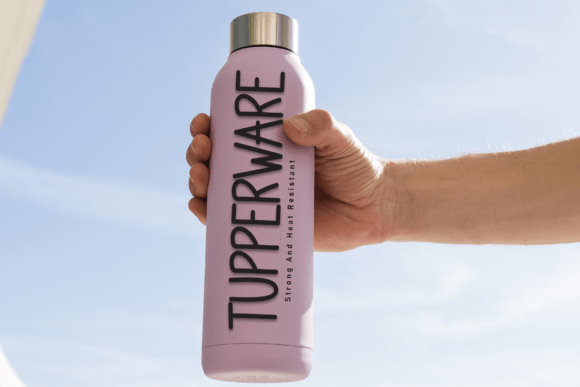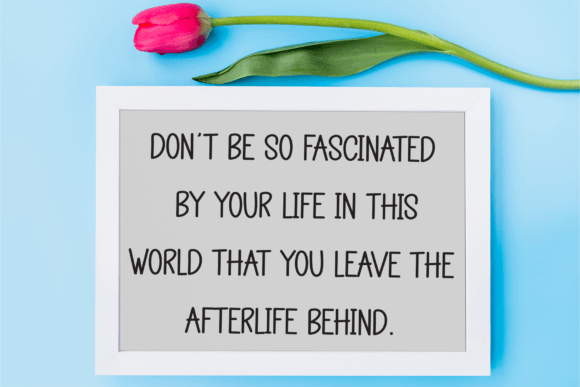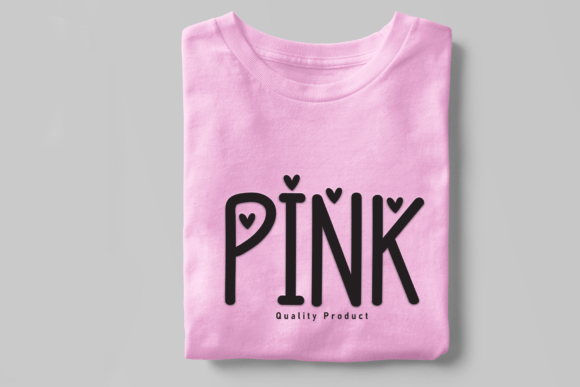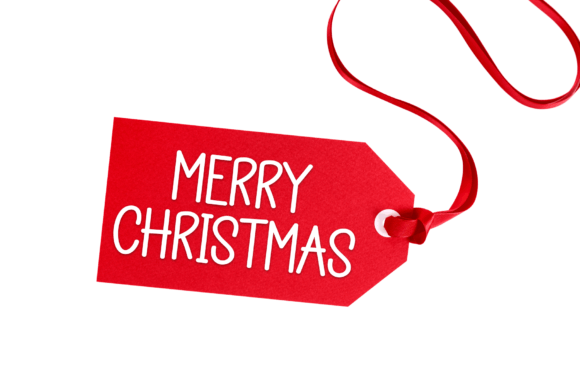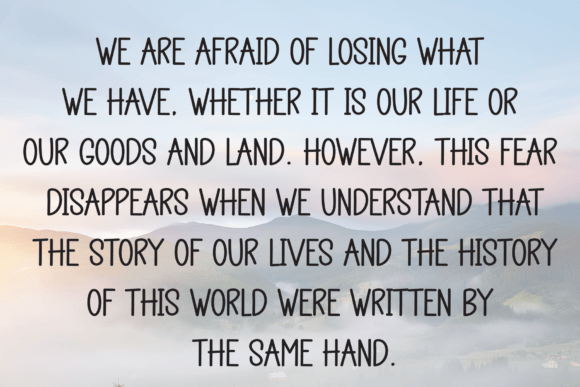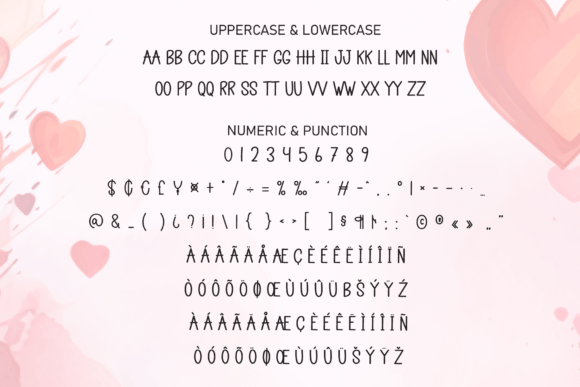
Introducing Hello Carmila Font: The Perfect Casual Handwritten Style for Your Designs
In the world of typography, fonts play a crucial role in conveying the tone and personality of a design. If you’re looking for a casual, handwritten font that exudes a relaxed and friendly vibe, look no further than Hello Carmila. This beautiful font is designed to bring a natural, effortless charm to your projects, making it perfect for personal designs, social media, and invitations.
The Characteristics of Hello Carmila Font
Hello Carmila is a casual handwritten font that boasts natural, flowing strokes. Its relaxed and friendly vibe makes it an ideal choice for designers who want to add a personal touch to their work. The font’s easygoing style adds warmth and authenticity, making it perfect for designs that require a human touch.
What Makes Hello Carmila Font Stand Out?
- Natural and Flowing Strokes: Hello Carmila’s strokes are smooth and fluid, giving the font a natural and effortless look.
- Casual and Friendly Vibe: The font’s relaxed style makes it perfect for designs that require a friendly and approachable tone.
- Easy to Read: Hello Carmila is clear and legible, making it easy to read and understand.
- Versatile: The font is suitable for a wide range of designs, from personal projects to social media and invitations.
Perfect for Personal Projects and Designs
Hello Carmila font is ideal for personal projects, such as:
- Blogging: Add a personal touch to your blog posts with Hello Carmila’s friendly and approachable style.
- Social Media: Use Hello Carmila to create engaging social media posts that stand out from the crowd.
- Invitations: Create beautiful and charming invitations for special occasions, such as weddings, birthdays, and baby showers.
- DIY Crafts: Add a personal touch to your DIY crafts, such as handmade cards, gift tags, and scrapbooking.
Tips for Using Hello Carmila Font Effectively
To get the most out of Hello Carmila font, here are some tips to keep in mind:
- Pair with Other Fonts: Hello Carmila pairs well with other fonts, such as sans-serif fonts, to create a visually appealing contrast.
- Use for Headings and Body Text: Use Hello Carmila for both headings and body text to create a cohesive look.
- Experiment with Colors: Try out different colors to find the perfect match for your design.
- Keep it Simple: Don’t over-accessorize your design. Hello Carmila’s simplicity is part of its charm.
Hello Carmila font is a beautiful, casual handwritten font that brings a relaxed and friendly vibe to any design. Its natural, flowing strokes and easygoing style make it perfect for personal projects, social media, and invitations. With its versatility and charm, Hello Carmila is sure to become a favorite among designers and crafters. So why not give it a try and see how it can elevate your designs?
Whether you’re a seasoned designer or a crafty DIY enthusiast, Hello Carmila font is a great addition to your typography collection. Its unique characteristics and versatility make it a valuable resource for anyone looking to add a personal touch to their designs.
So go ahead, get creative, and make Hello Carmila font a part of your design journey!